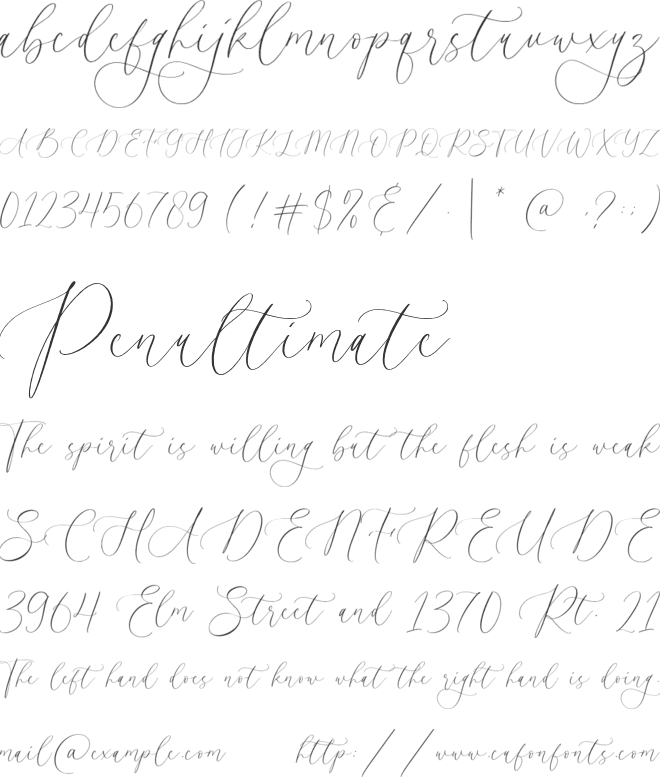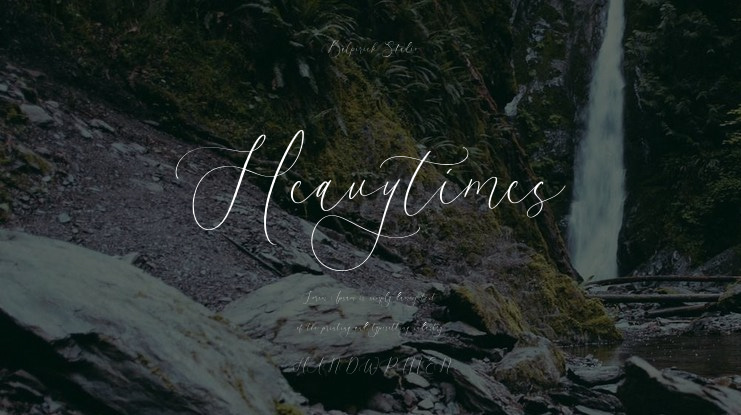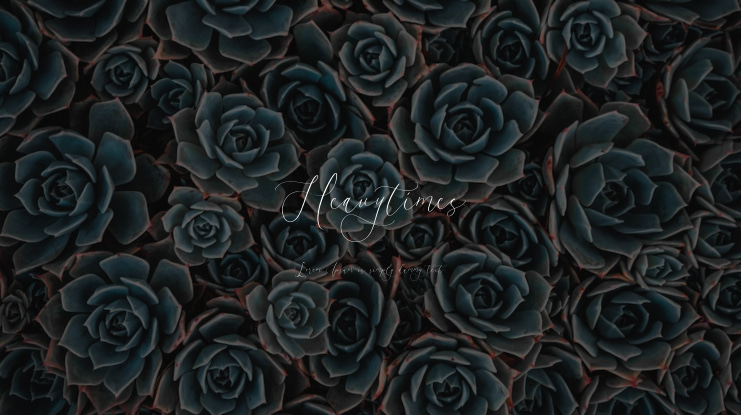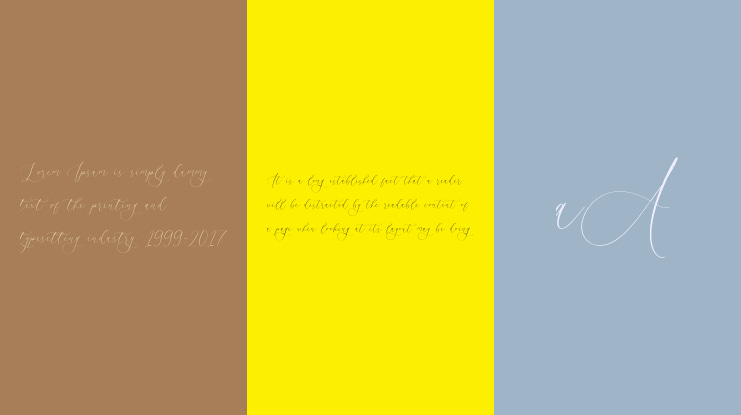
Heavytimes Font
Introducing Heavytimes, a stunning calligraphy font with intricate details and elegant swashes. This font features a handmade style that adds sophistication and charm to any design. Perfect for wedding invitations, branding, or other romantic projects, the flowing tails and swashes create a harmonious composition.
Key Features: - Lowercase ending swash - Heart connection - Multilingual support included